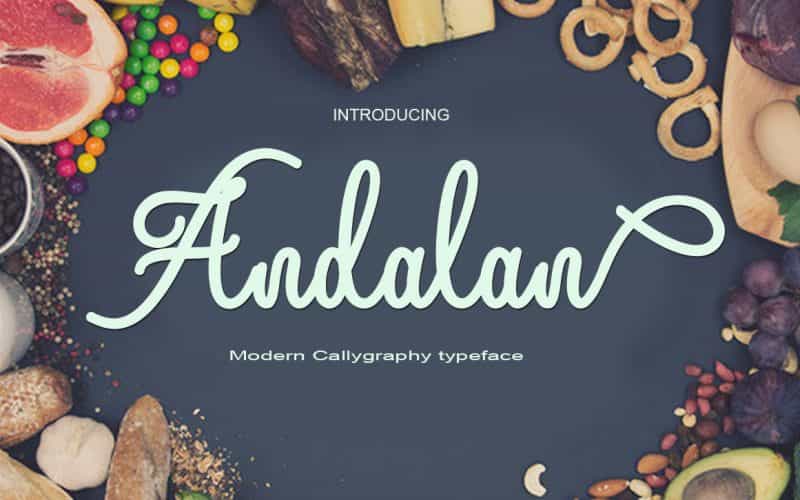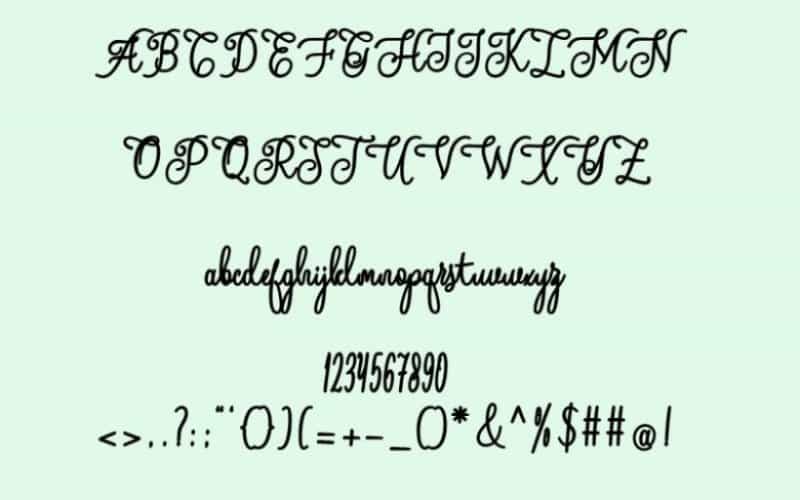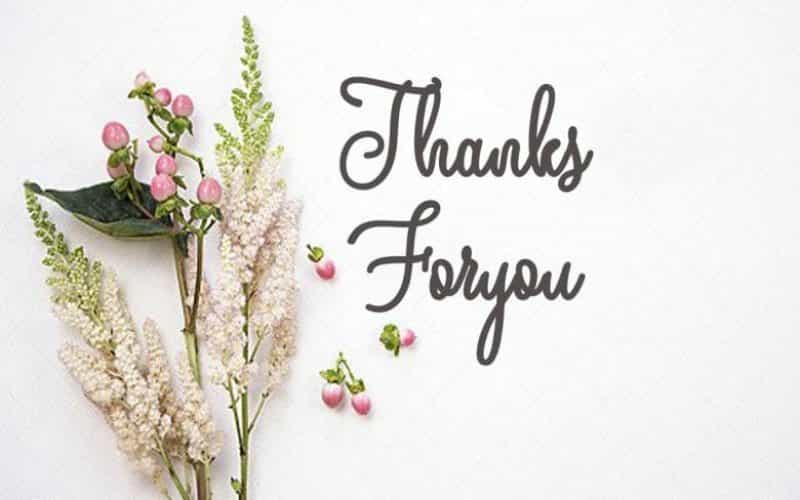
Discover Andalan Script Font, part of the Brush collection—a versatile and unique font perfect for adding a personal touch to your projects. Download it for free and enjoy crafting designs with style, from invitations to social media posts. This font is available exclusively for personal use, giving you the freedom to create without limits. Unlock your creativity with Andalan Script Font today!
The New fresh & modern style of Andalan is distinguished by the handmade calligraphy, the decorative characters and the dancing lineage!Thus, so great are those invitations like greeting cards, branding material, business cards, quotes, posters, and more.